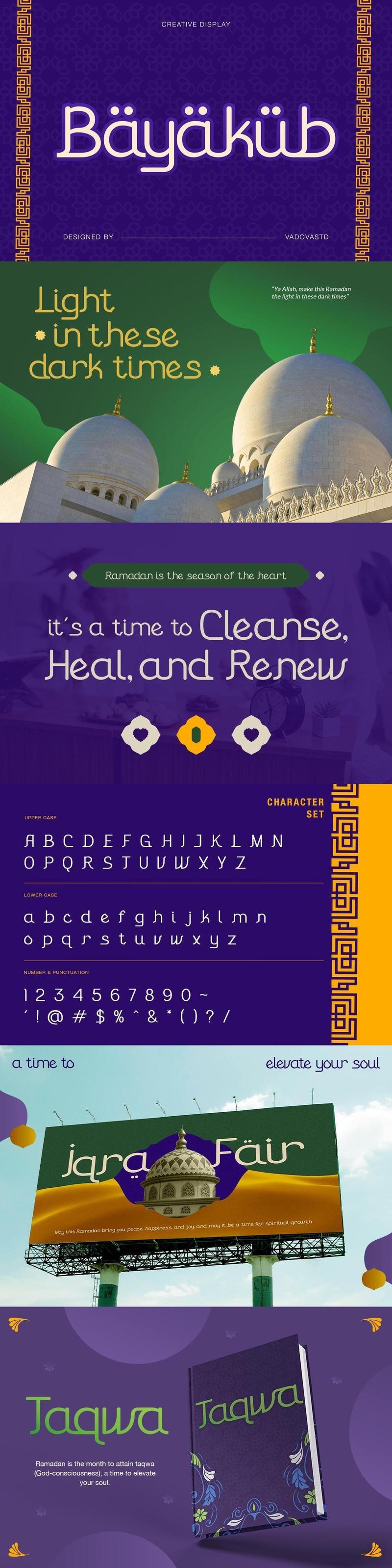
Bayakub Creative Display ZHVQ9PR
Elevate your designs with **Bayakub Creative Display**, a modern font perfect for adding elegance and style to your projects. Whether its for quotes, logotypes, magazine headers, or more, this versatile typeface ensures your text stands out beautifully.
* Uppercase & Lowercase characters
* Numeral & Punctuations